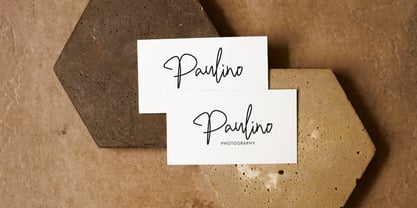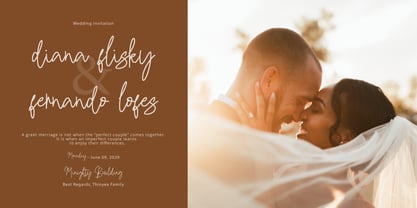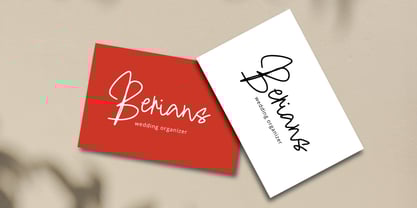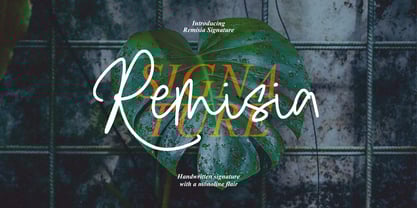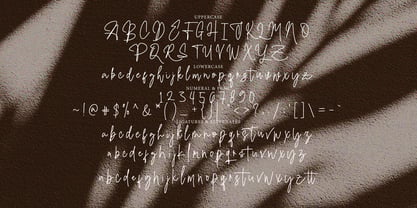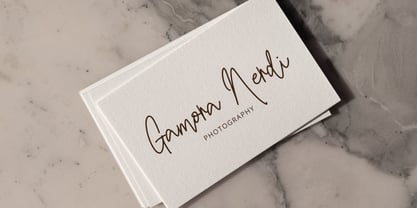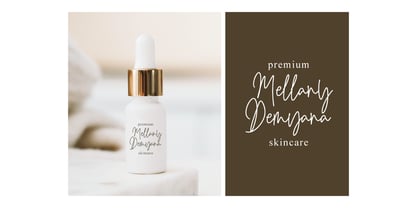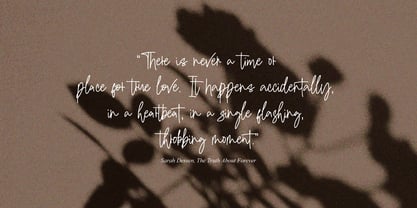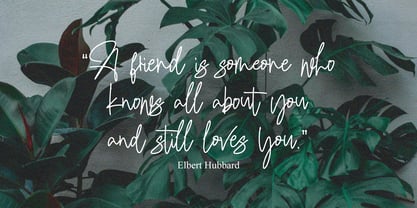
Renistian Signature
by Tebaltipis Studio
The Renistian Signature Font Family was designed by Dzulka Elfira and published by Tebaltipis Studio. Renistian Signature contains 1 styles. More about this family
Remisia Signature with a handmade Signature style, decorative characters and a dancing baseline! So beautiful on invitation like greeting cards, branding materials, business cards, quotes, posters, and more!!
Renistian Signature